Typography plays a crucial role in visual communication, and one of the fundamental distinctions in typeface design lies in the choice between serif and sans serif fonts. These two broad categories have distinct characteristics that can significantly impact the overall look and feel of a design. In this article, we will delve into the differences between serif and sans serif typefaces, exploring their unique features, historical contexts, and common applications.
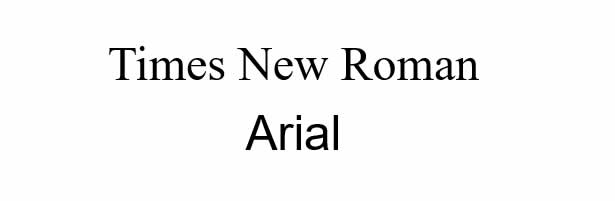
- Serif Typefaces: Serif typefaces are characterized by the small decorative lines, known as serifs, that extend from the main strokes of the letters. These serifs can take various forms, such as bracketed serifs, slab serifs, or wedge serifs. Examples of popular serif typefaces include Times New Roman, Georgia, and Baskerville. Here are some key features and considerations of serif typefaces:
- Legibility: The presence of serifs is believed to aid in guiding the reader’s eye along the lines of text, which can enhance legibility, especially in printed materials.
- Formal and Traditional: Serif typefaces are often associated with a formal and classic aesthetic. They are commonly used in contexts that require a sense of tradition, such as books, newspapers, and formal invitations.
- Historical Significance: Serif typefaces have a rich history, with many tracing their origins back to the Renaissance and the development of printing. Their traditional appearance can evoke a sense of craftsmanship and authenticity.
- Serif Variations: Different serif typefaces have unique characteristics. For example, old-style serifs have a more organic and calligraphic feel, while modern serifs feature sharper, more geometric forms.
- Sans Serif Typefaces: Sans serif typefaces, as the name implies, do not have the small serifs extending from the letterforms. Examples of popular sans serif typefaces include Arial, Helvetica, and Futura. Let’s explore the key aspects of sans serif typefaces:
- Simplicity and Modernity: Sans serif typefaces are often associated with a clean and minimalist aesthetic. Their absence of serifs gives them a more contemporary and streamlined appearance.
- Legibility: Sans serif typefaces are often considered highly legible, especially in digital environments. The absence of serifs can contribute to better readability at smaller sizes or on low-resolution screens.
- Versatility: Sans serif typefaces are often regarded as versatile and suitable for a wide range of applications. They can work well in both print and digital media and are often chosen for their neutral and adaptable nature.
- Clarity and Directness: Sans serif typefaces are often used in contexts that require a straightforward and direct visual communication style, such as signage, user interfaces, and branding with a modern edge.
When choosing between serif and sans serif typefaces, it’s essential to consider the specific context, target audience, and desired visual impact. Both serif and sans serif typefaces have their strengths and can effectively convey different moods and messages.
In conclusion, the choice between serif and sans serif typefaces is a fundamental decision in typography and design. Serif typefaces offer a sense of tradition, formality, and craftsmanship, while sans serif typefaces provide a modern, clean, and versatile aesthetic. Understanding the characteristics and applications of these two broad categories can help designers make informed decisions and create visually compelling and effective designs.